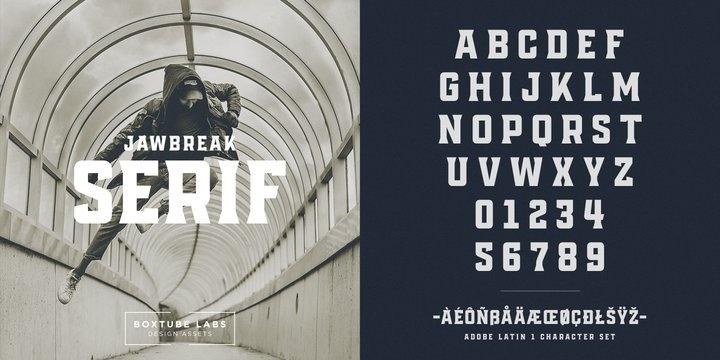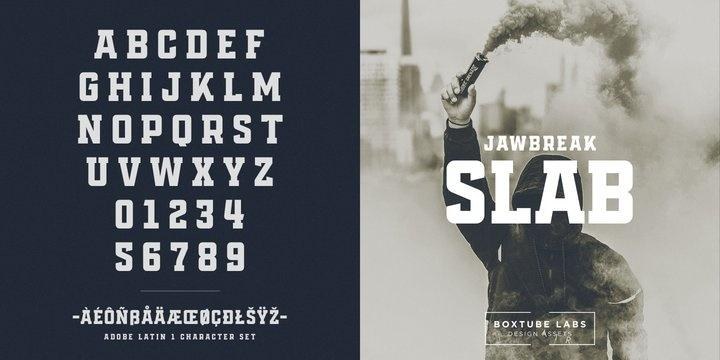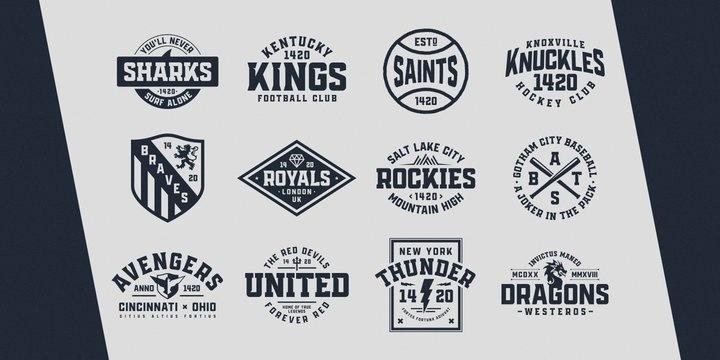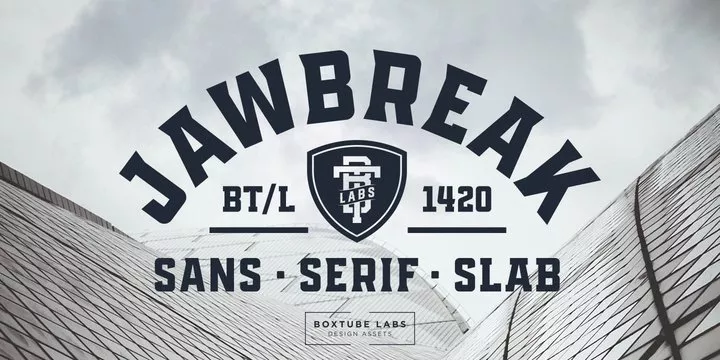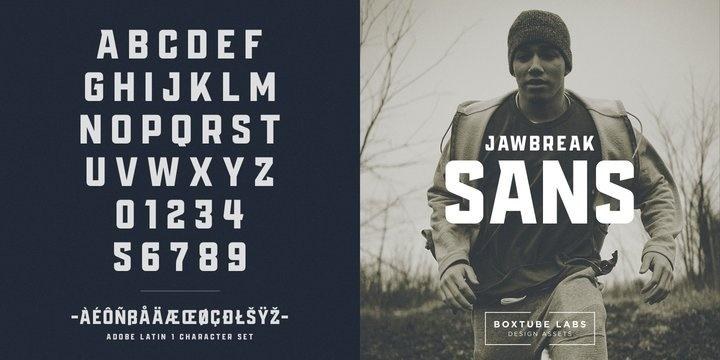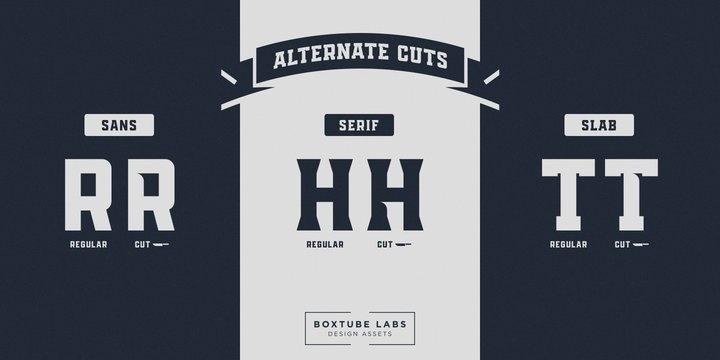
Jawbreak Font Family
A modern sports font with classic roots. Jawbreak’s three distinct styles and alternate cuts makes it incredibly versatile and perfect for logotypes, sports branding, po…
A modern sports font with classic roots. Jawbreak’s three distinct styles and alternate cuts makes it incredibly versatile and perfect for logotypes, sports branding, posters, apparel design, magazine headlines, labels and so much more. Jawbreak features a full Adobe Latin 1 character set, with support for most western languages including: Afrikaants, Basque, Breton, Catalan, Danish, Dutch, English, Finnish, French, Gaelic, German, Icelandic, Indonesian, Irish, Italian, Norwegian, Portuguese, Sami, Spanish, Swahili and Swedish.
Where Jawbreak Font Family works best
Sports & outdoor brands
Slab serifs like Jawbreak Font Family feel sturdy and confident — perfect for athletic, outdoor and automotive branding.
Editorial headlines
Strong slabs anchor magazine headlines and blog titles.
Packaging
Coffee, craft beer and hardware packaging often lean on slab serifs for a trustworthy look.
What is Jawbreak Font Family good for?
Jawbreak Font Family is a Slab Serif Fonts typeface tagged Branding, Classic, Editorial, Modern. It works well for headlines, logos, posters, social media graphics and branding projects that need a distinctive slab serif fonts look.